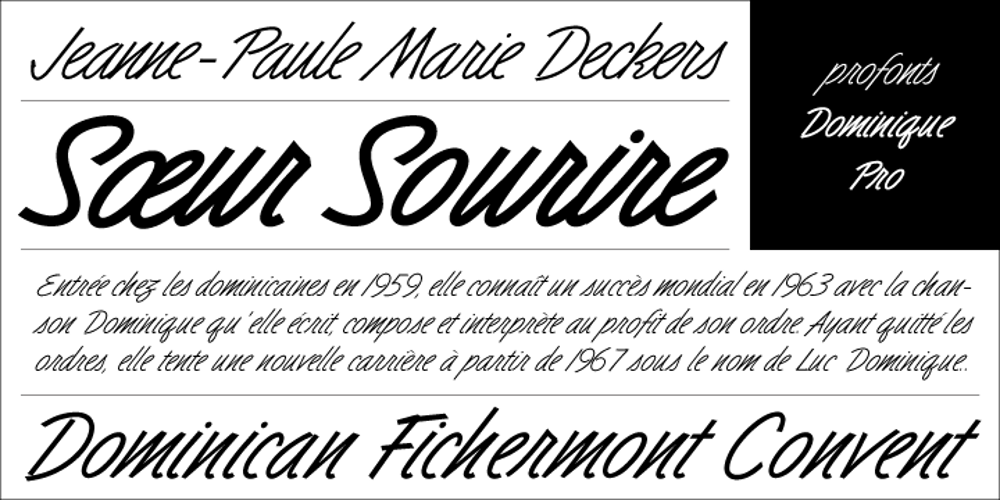
Dominique Font Family was designed by Ralph M. Unger and published by profonts. Dominique contains 4 styles and family package options. Distinctive and informal, this unusual script type style is suitable for a wide variety of display applications, particularly where a casual effect is desired.